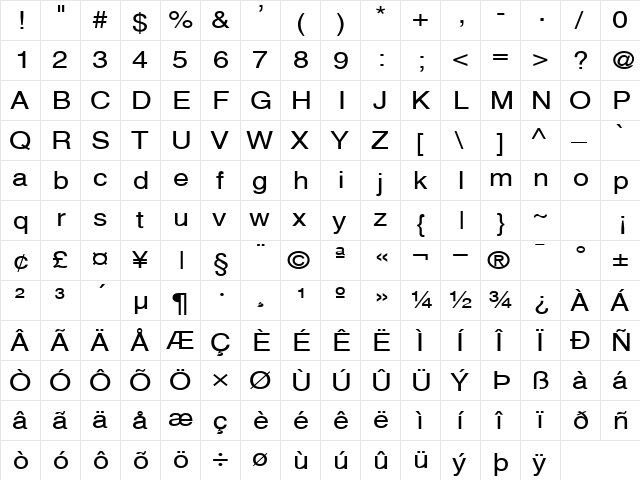
Alps Wide Normal Font Preview
Alps Wide Normal
Design Context for Alps Wide Typeface
Alps Wide is a composed and adaptable typeface that performs quietly and consistently across a wide range of design contexts.